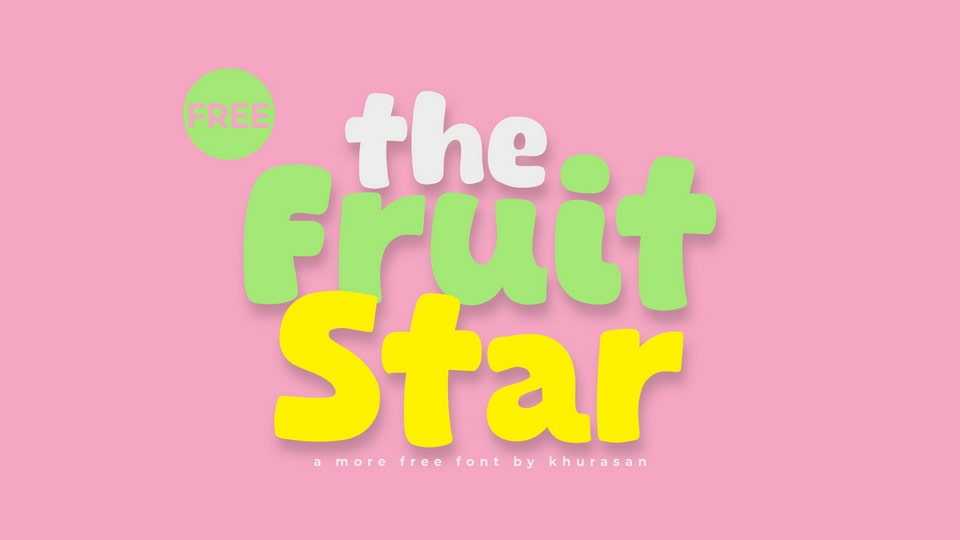
Download The Fruit Star font, a playful hand-lettered cartoon typeface that transforms your text into a whimsical, animated adventure. With its playful curves, quirky strokes, and lively embellishments, The Fruit Star font captures the essence of carefree fun.